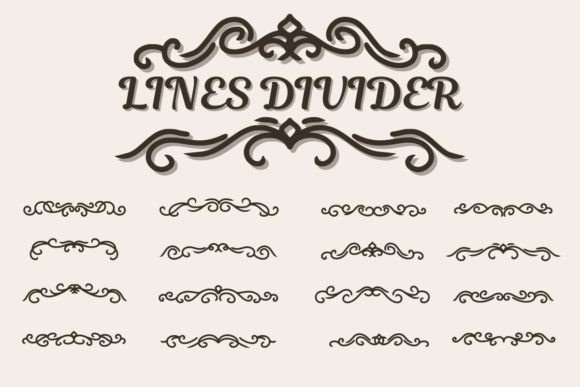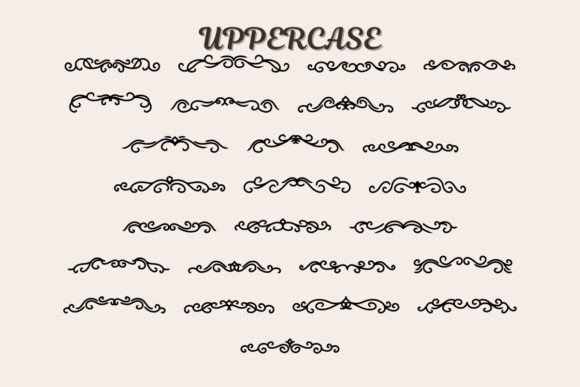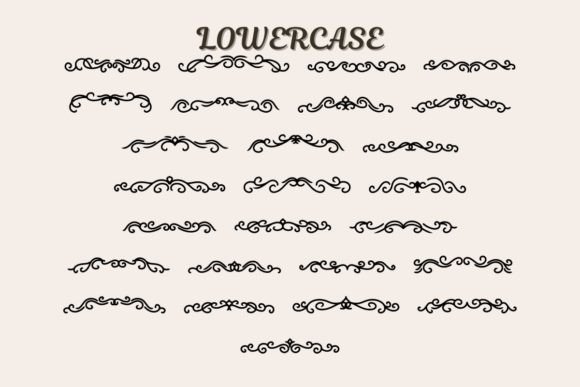
Lines Divider Font
About the Lines Divider Font
Unleash your creativity with Lines Divider Font, a versatile font perfect for a wide range of applications. Lines Divider is a dingbats font that features vintage ornaments in a bold line style. Beautify the quality of invitations, cards, logos and digital art with this decoration. Lines Divider Dingbat Font is ideal for enhancing a variety of designs, including logos, t-shirts, cups, pillows, invitations, digital art, and social media graphics and more
Lines Divider’s bold, vintage style works best for headlines, short text blocks in branding materials, and decorative elements on packaging or posters. It excels in applications requiring a strong visual impact, adding a touch of retro elegance. Avoid using it for body text or long paragraphs; its ornate nature can hinder readability.
The font’s personality is decidedly bold and vintage-inspired, lending itself well to projects with a classic yet slightly rebellious feel. Brands targeting a sophisticated, perhaps slightly nostalgic audience would find it particularly effective.
Pairing Lines Divider with a clean sans-serif like Open Sans for body copy provides excellent contrast and readability. For a more luxurious feel, consider pairing it with a classic serif font such as Garamond or a slightly more modern geometric sans-serif such as Montserrat. Avoid pairing it with other heavily ornamented fonts.